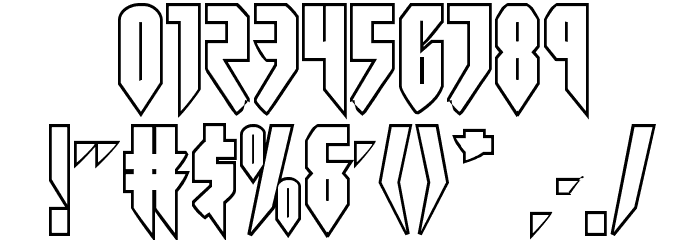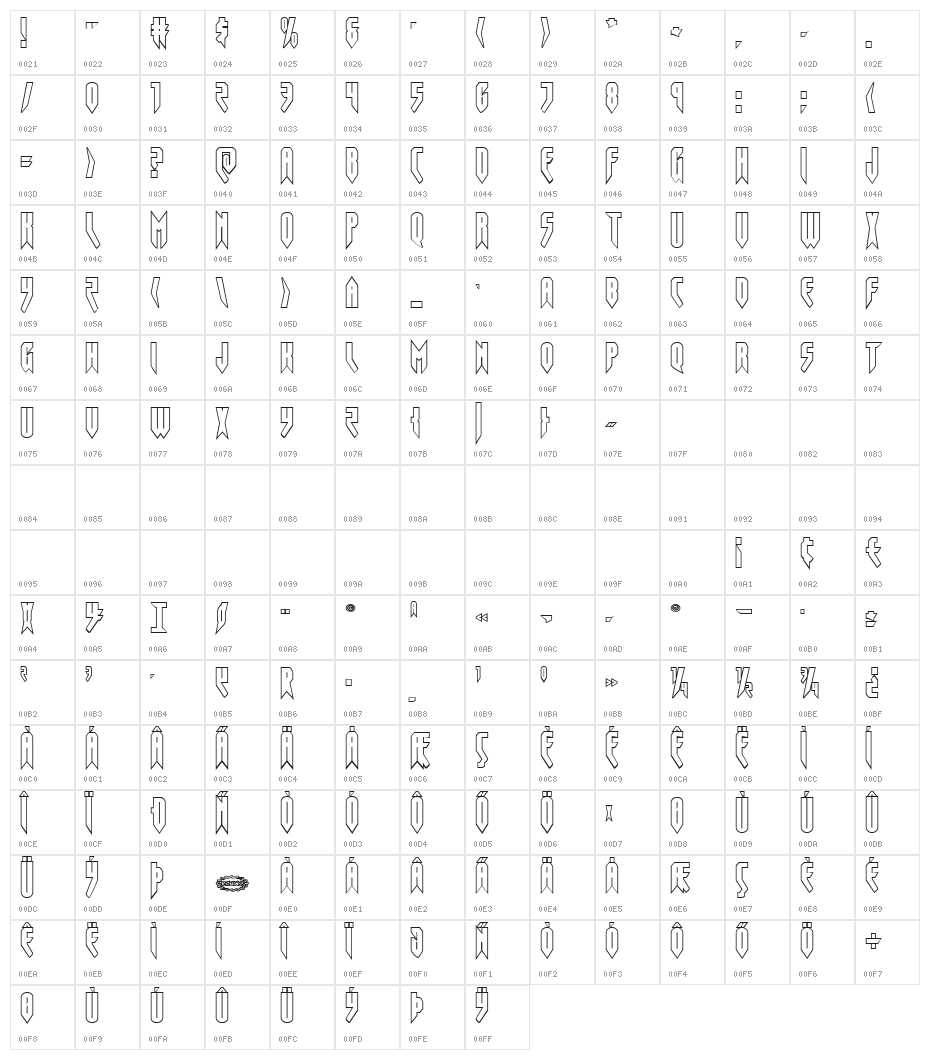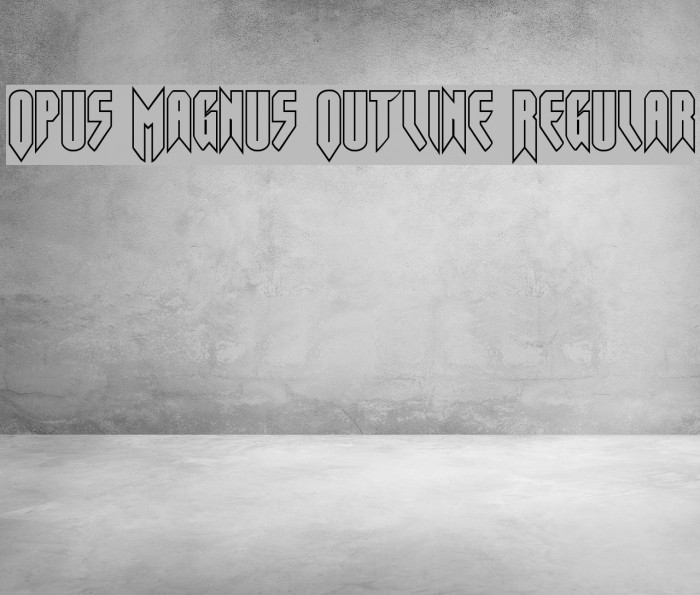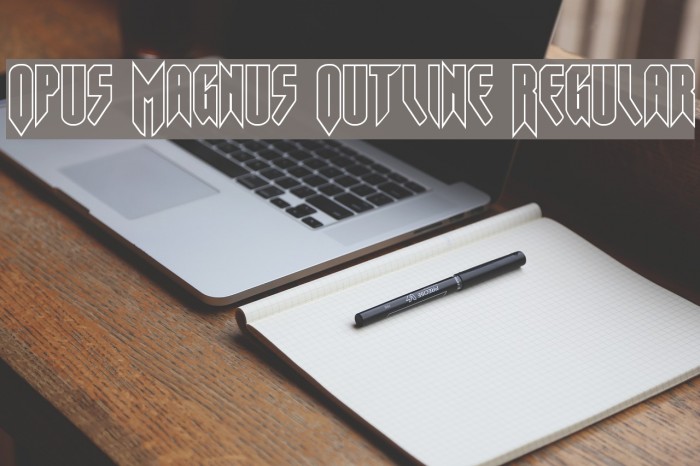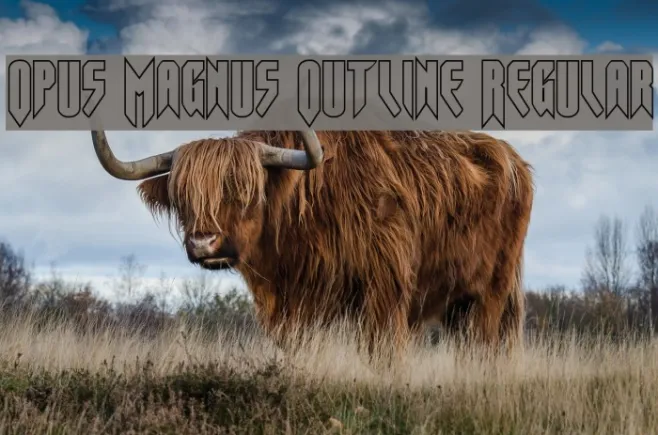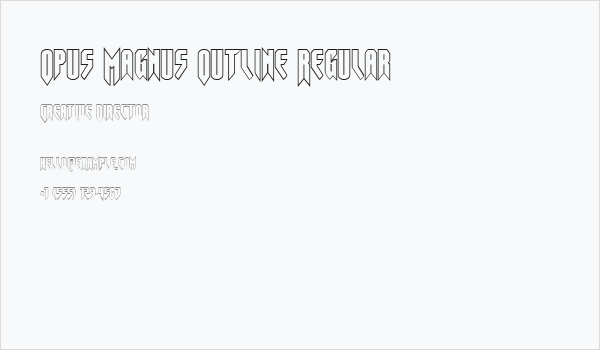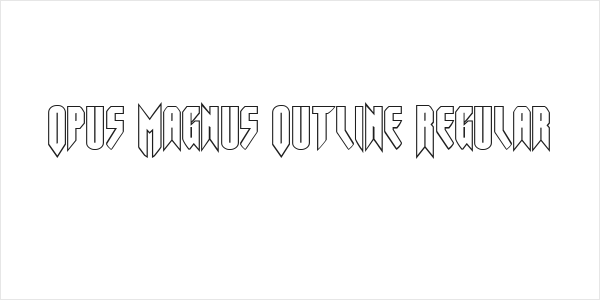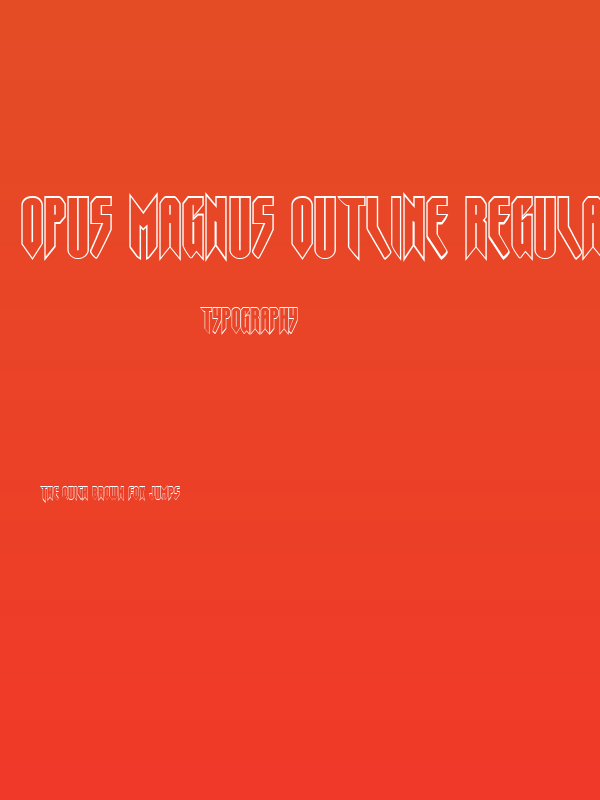
Opus Magnus Outline Regular Font
Opus Magnus Outline Regular Description
This font features a bold, geometric outline style with sharp angles and a futuristic aesthetic. The uppercase letters are distinct with a strong presence, characterized by their angular and pointed design. The font maintains a consistent thickness throughout, giving it a uniform appearance. The numbers and special characters follow the same design principles, ensuring a cohesive look across all elements. This font is particularly eye-catching and would stand out in any design context.